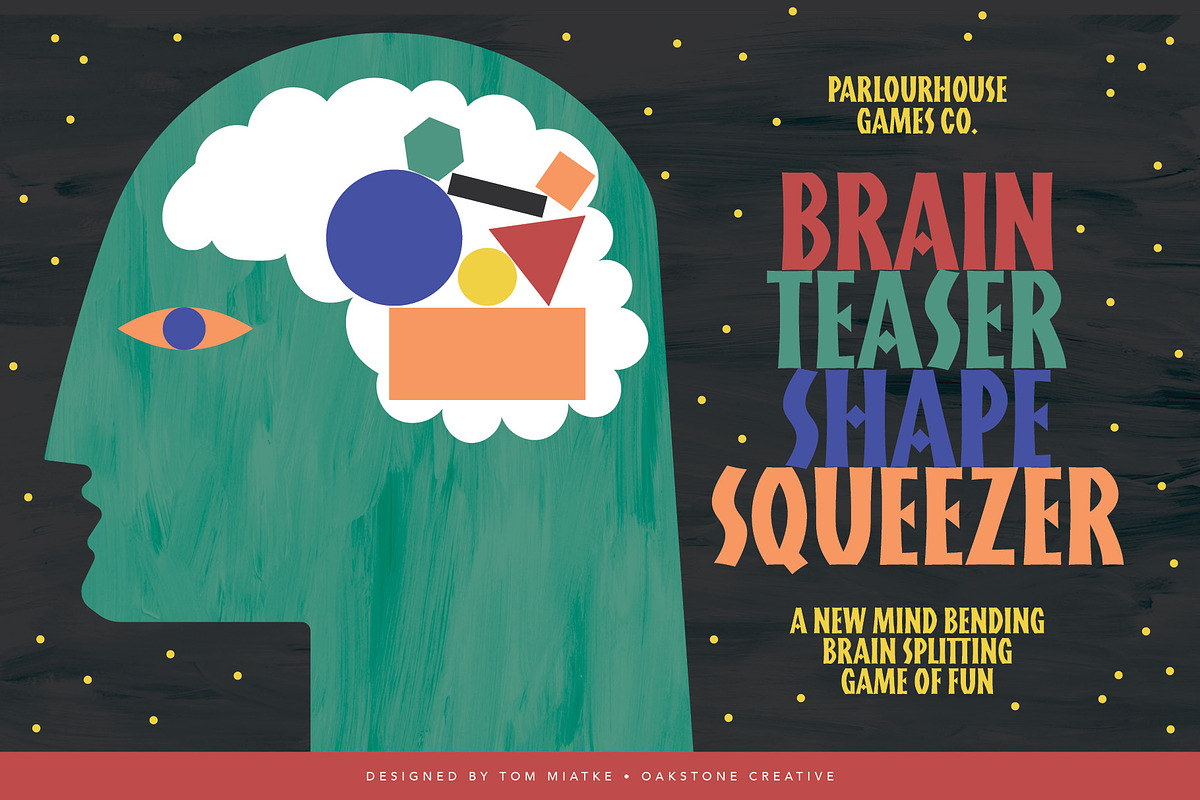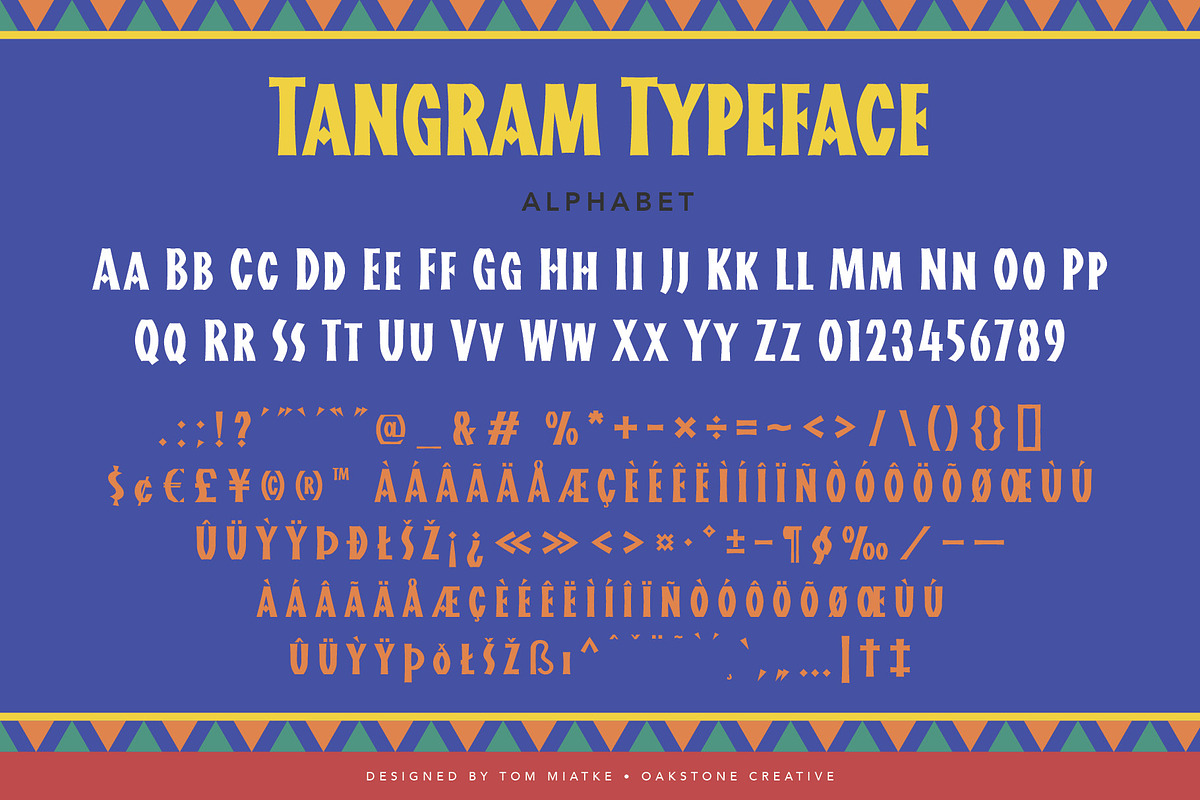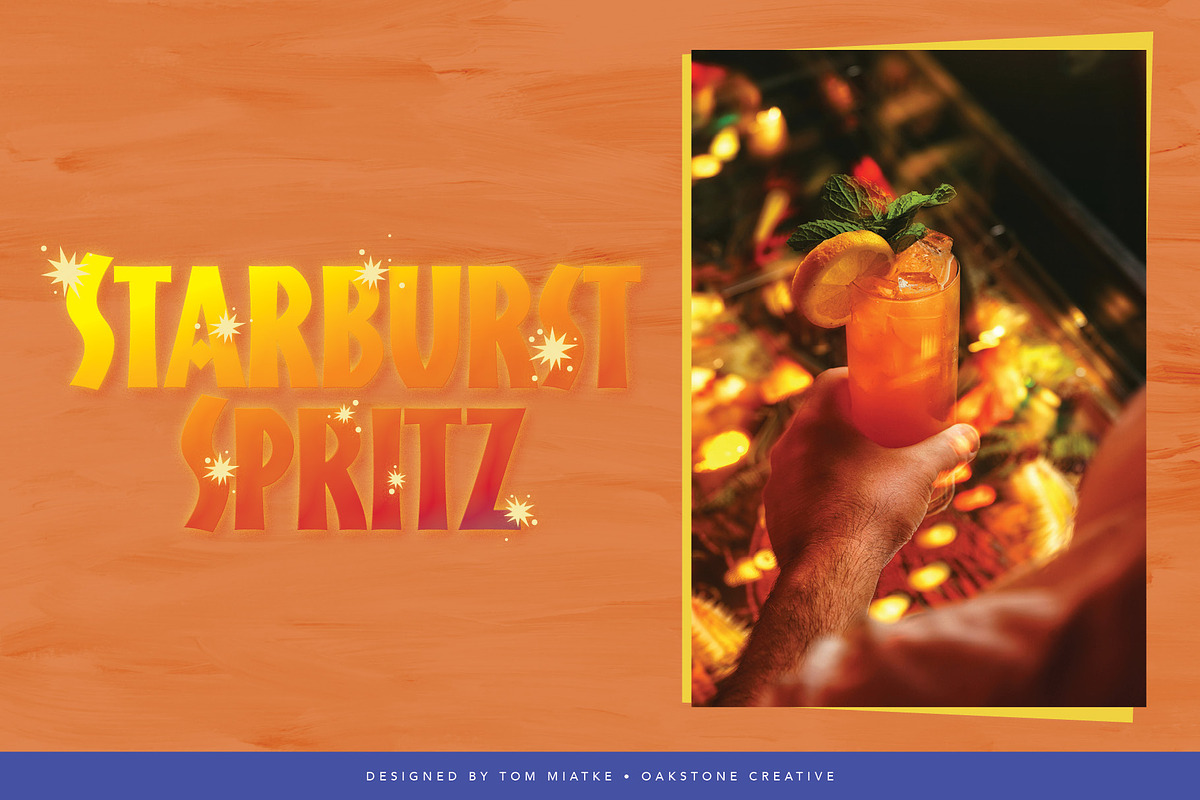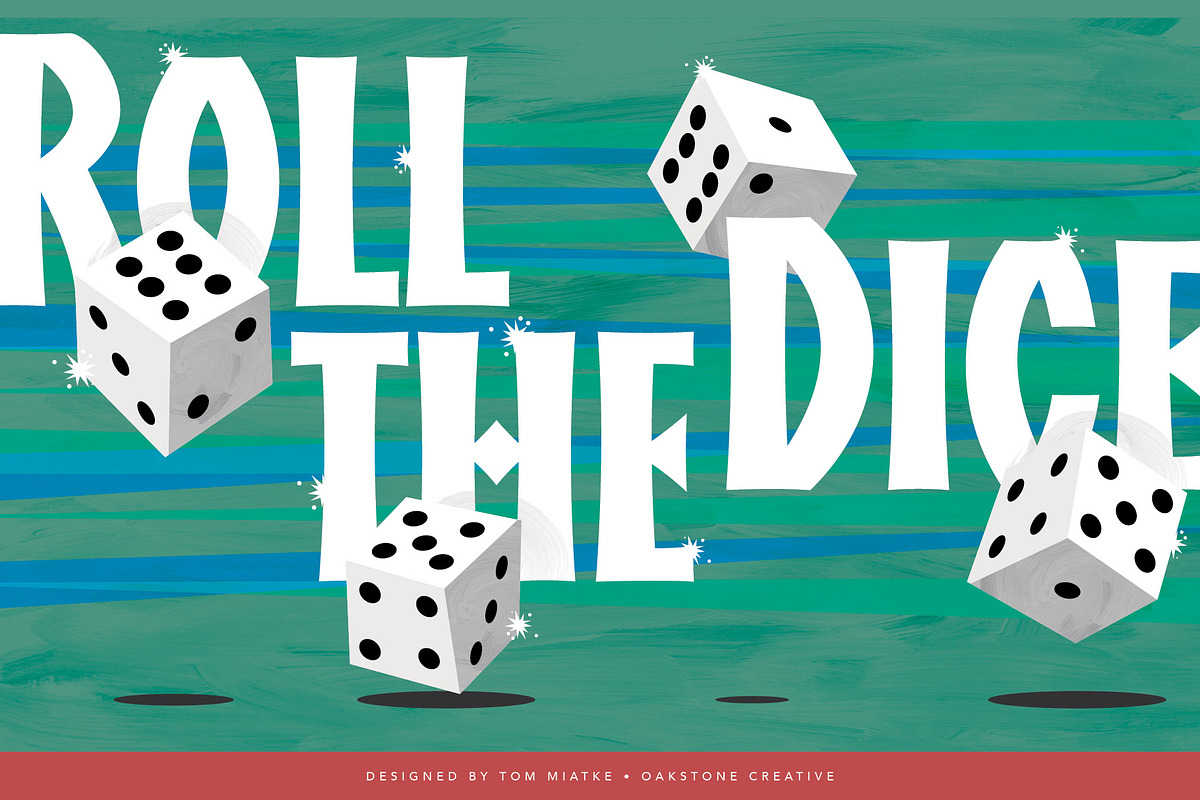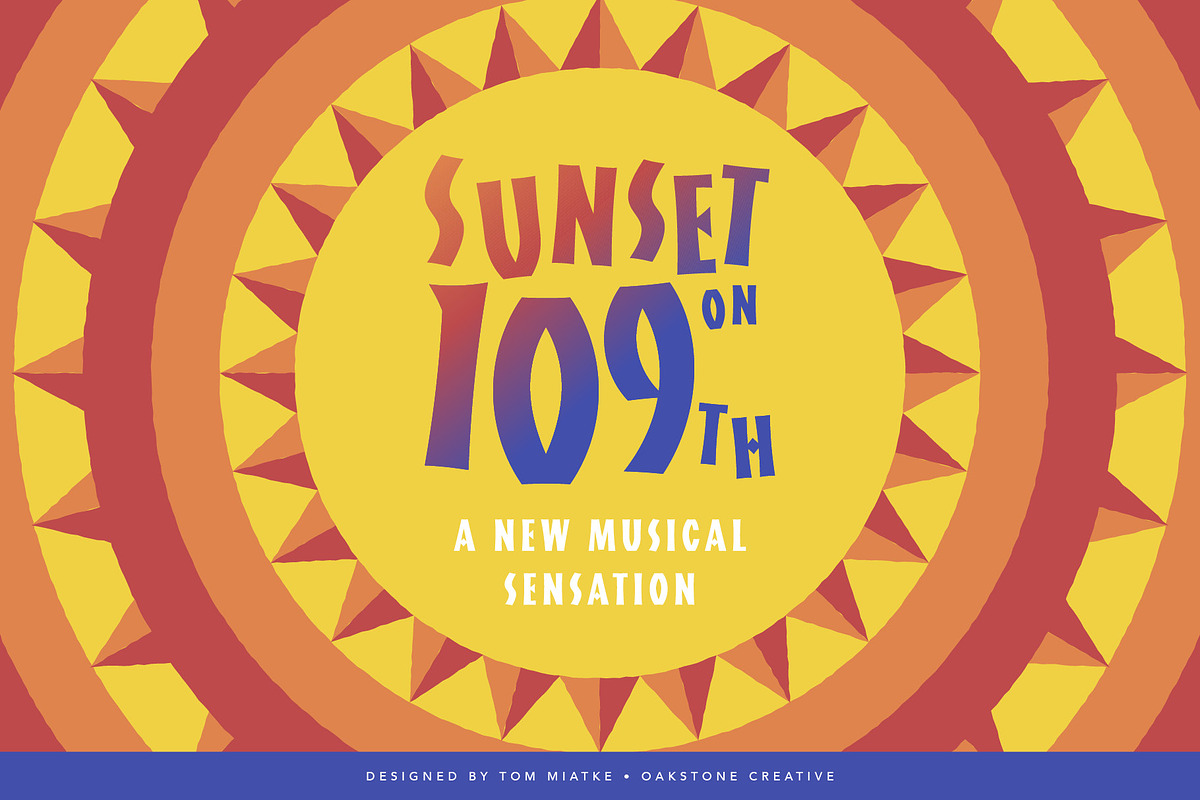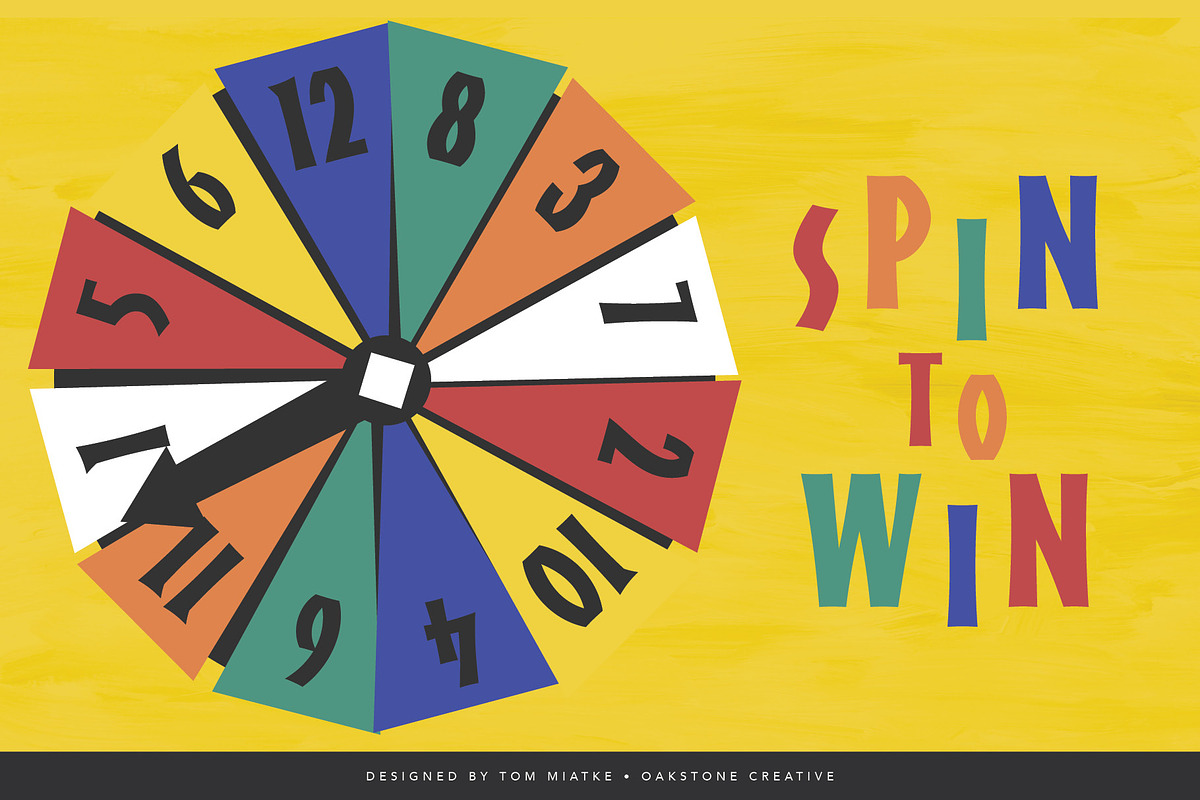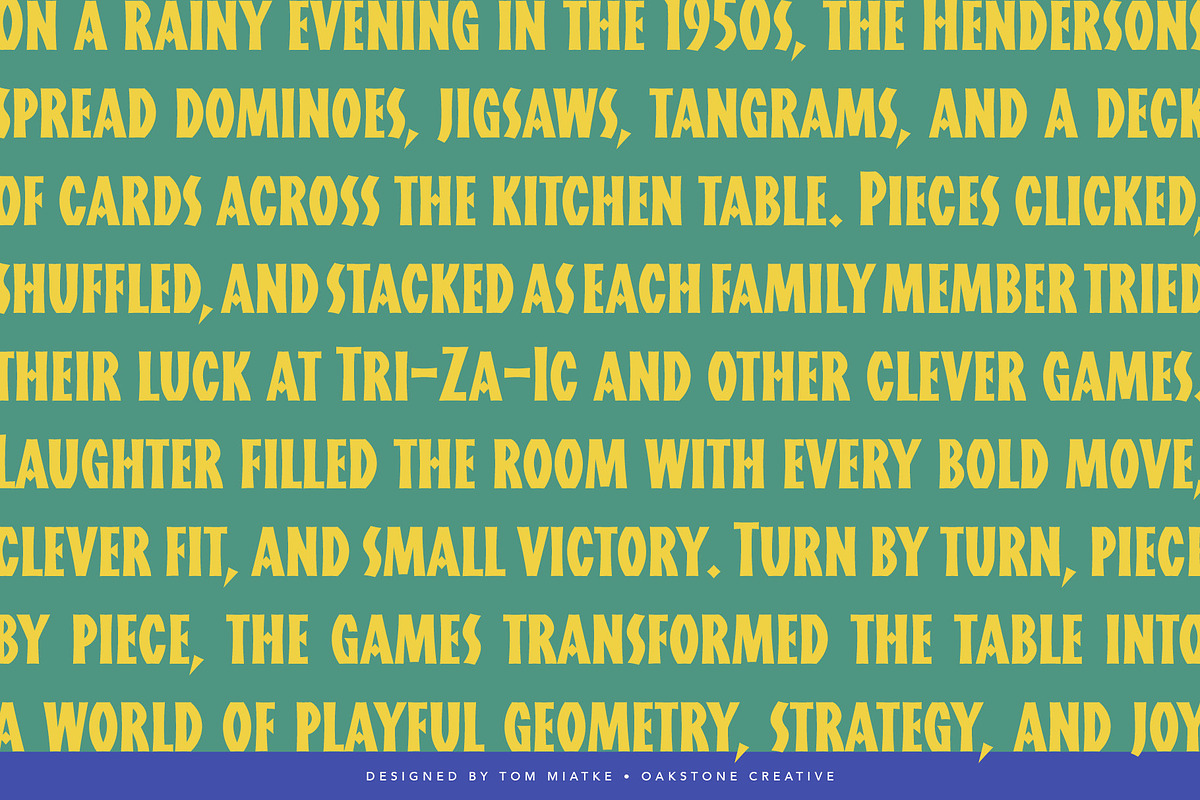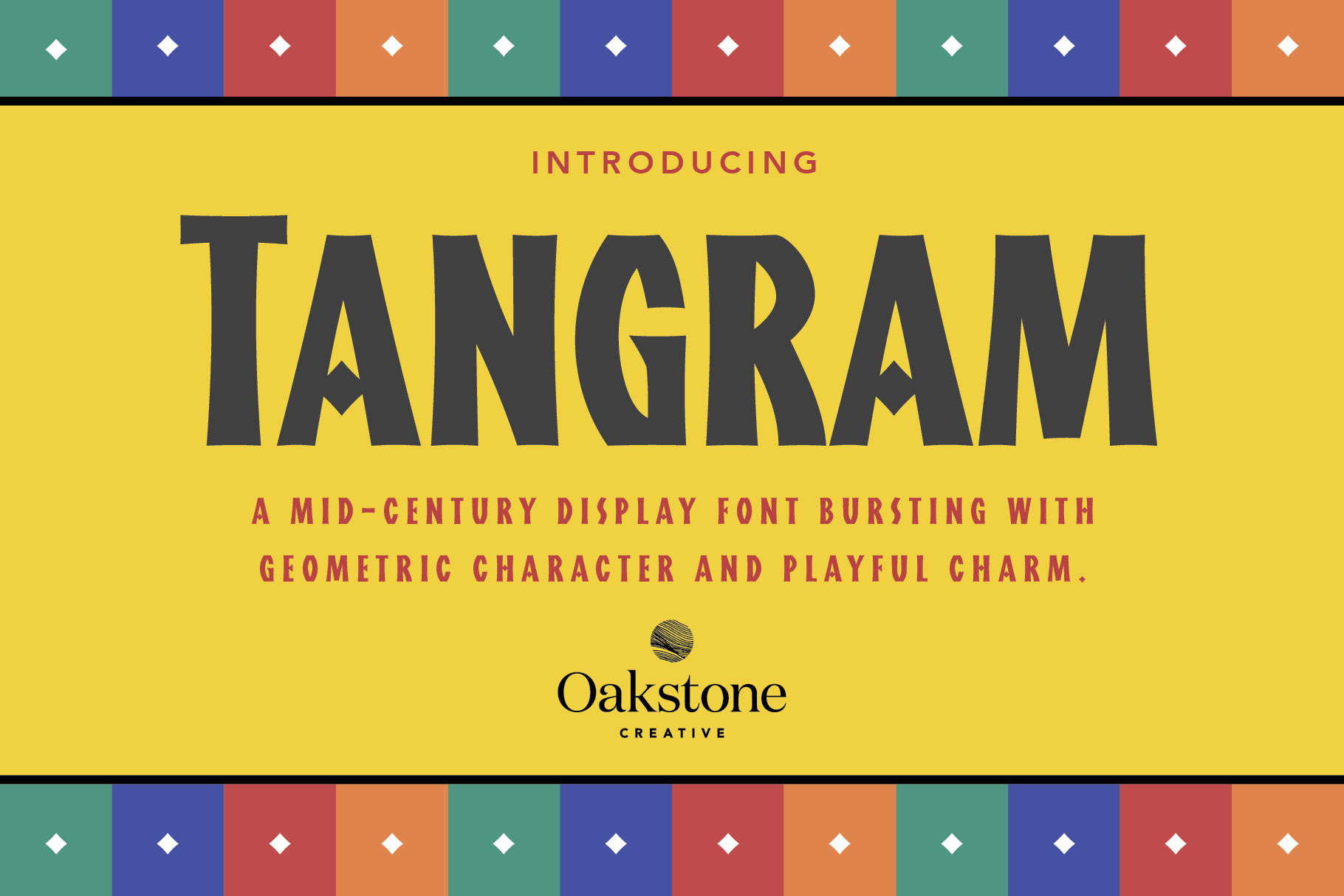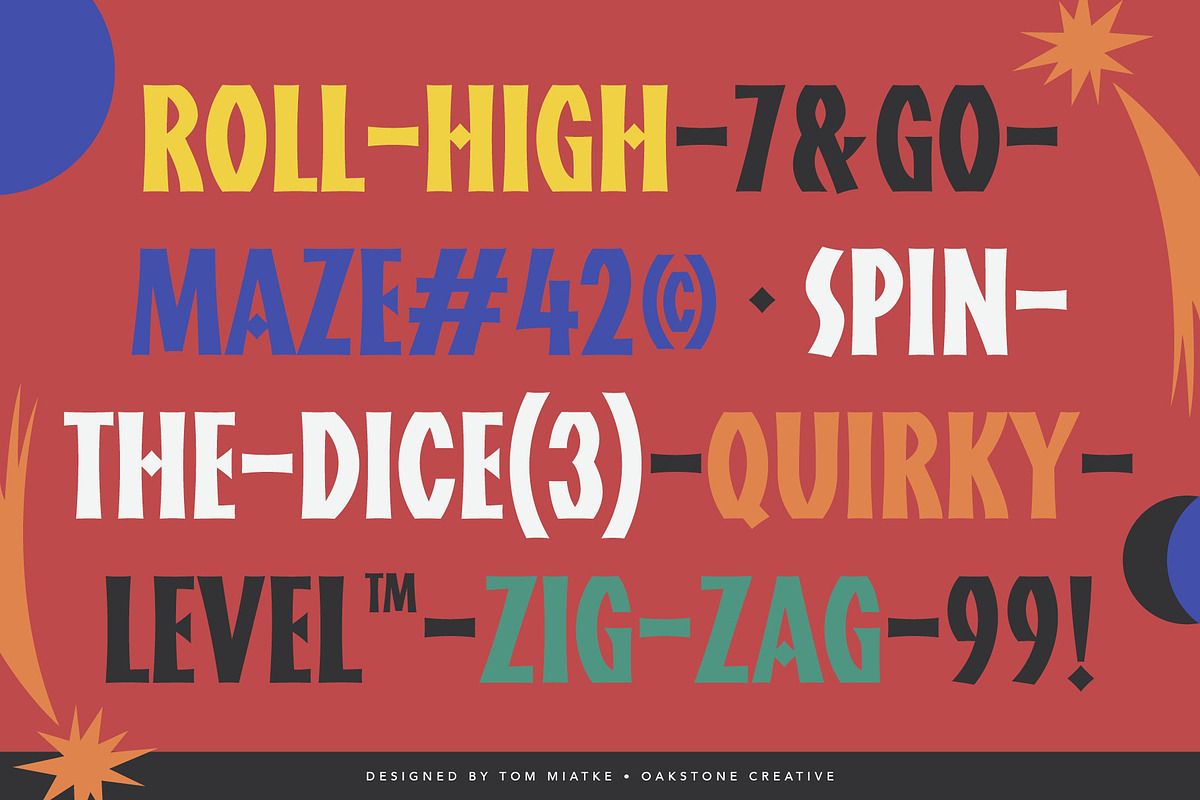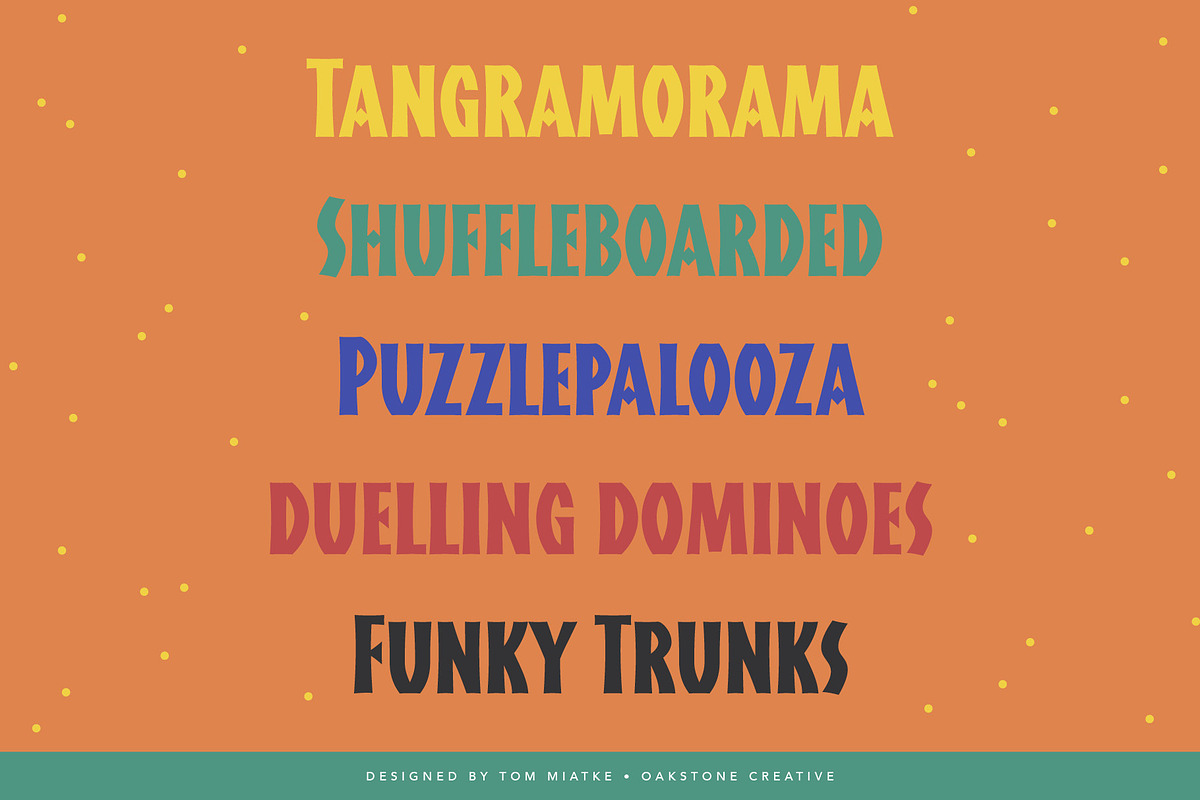
Tangram – Mid-Century Display Font
OC Tangram is a bold mid-century display typeface inspired by vintage board game books, classic puzzle culture, and retro geometric design. Built on confident shapes and rhythmic structure, this font blends playful personality with strong visual impact, making it ideal for standout branding and expressive typography.
With bold geometric letterforms, clean curves, and a nostalgic mid-century character, OC Tangram is perfect for logos, headlines, posters, packaging, editorial design, retro branding, and graphic-led layouts. Its structured forms create strong visual presence while subtle quirks bring warmth, charm, and originality.
Whether you’re designing vintage-inspired branding, bold signage, packaging, or editorial layouts, OC Tangram delivers a distinctive mix of retro flair and modern clarity.
- Strong geometric structure
- Bold, retro display style
- Perfect for branding, posters, packaging & editorial